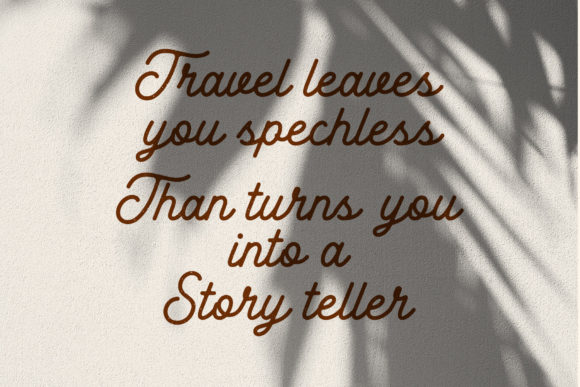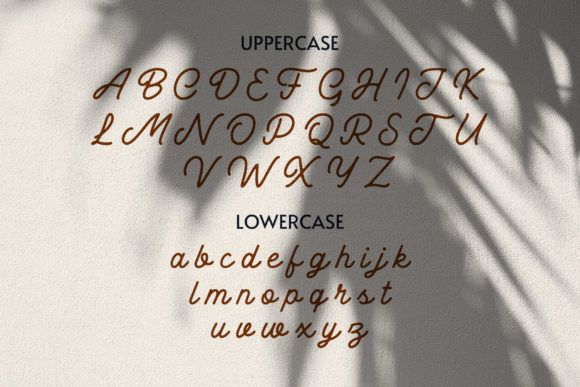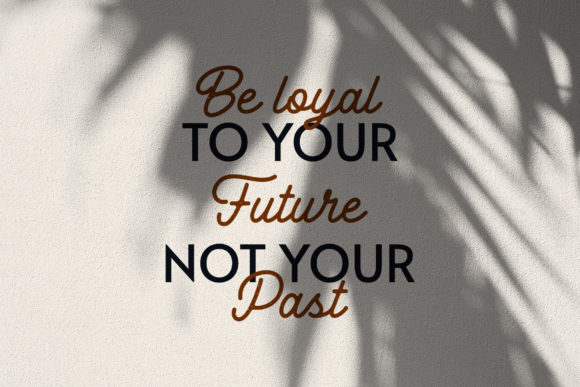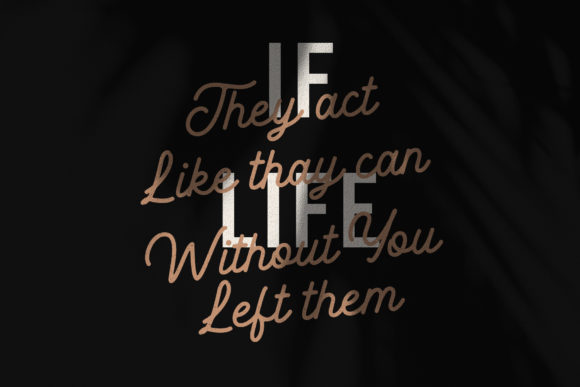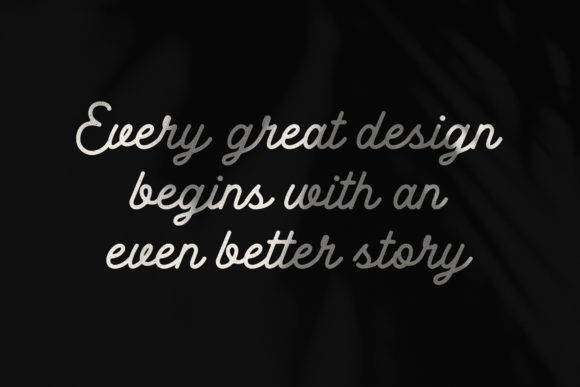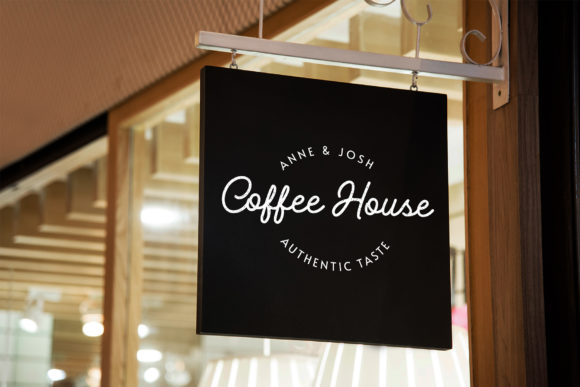
Introducing Darkas Font: Elevate Your Designs with a Touch of Vintage Elegance
In the world of typography, fonts play a crucial role in conveying the tone and aesthetic of a brand or design. For designers and crafters looking to add a touch of sophistication and elegance to their projects, Darkas Font is an excellent choice. This beautiful, well-balanced, and vintage-styled script font is defined by smooth curves, making it perfect for fashion branding or editorial designs.
The Characteristics of Darkas Font
Darkas Font boasts a unique set of characteristics that set it apart from other fonts. Its smooth curves and flowing lines give it a sense of fluidity and elegance, making it ideal for designs that require a touch of sophistication. The font’s vintage style is reminiscent of classic typography, evoking a sense of nostalgia and timelessness.
One of the standout features of Darkas Font is its balance and harmony. The font’s letters are carefully crafted to work seamlessly together, creating a sense of cohesion and visual flow. This makes it perfect for use in fashion branding, editorial designs, and other applications where typography plays a key role.
Why Choose Darkas Font?
So, why should designers and crafters choose Darkas Font for their projects? Here are just a few reasons:
- Elegance and Sophistication: Darkas Font adds a touch of elegance and sophistication to any design, making it perfect for high-end fashion brands, editorial designs, and luxury products.
- Vintage Style: The font’s vintage style gives it a unique and distinctive look that sets it apart from more modern fonts.
- Versatility: Darkas Font is versatile and can be used in a variety of design applications, from fashion branding to editorial designs.
- Easy to Read: Despite its elegant and cursive nature, Darkas Font is easy to read, making it perfect for use in body text and other applications where legibility is key.
How to Use Darkas Font in Your Designs
Using Darkas Font in your designs is easy. Here are a few tips to get you started:
- Pair it with a Sans-Serif Font: Pair Darkas Font with a sans-serif font to create a striking contrast and add visual interest to your design.
- Use it for Headings and Titles: Darkas Font is perfect for use in headings and titles, where its elegant and cursive nature can be showcased.
- Experiment with Different Colors: Darkas Font looks great in a variety of colors, from bold and bright to muted and pastel.
| Font Name | Darkas Font |
| Author | The1stWinner |
In conclusion, Darkas Font is a beautiful, well-balanced, and vintage-styled script font that is perfect for fashion branding or editorial designs. Its smooth curves and flowing lines give it a sense of elegance and sophistication, making it a great choice for designers and crafters looking to add a touch of luxury to their projects. With its versatility, ease of use, and stunning good looks, Darkas Font is sure to become a favorite in your design toolkit.